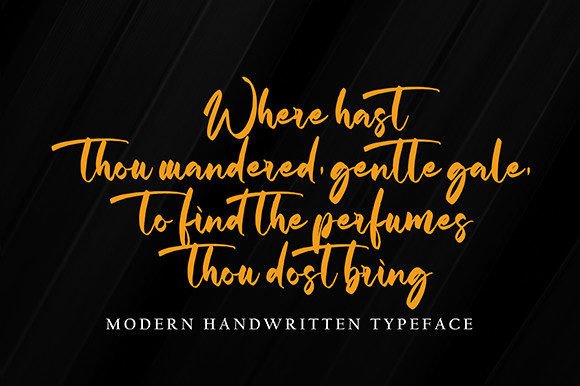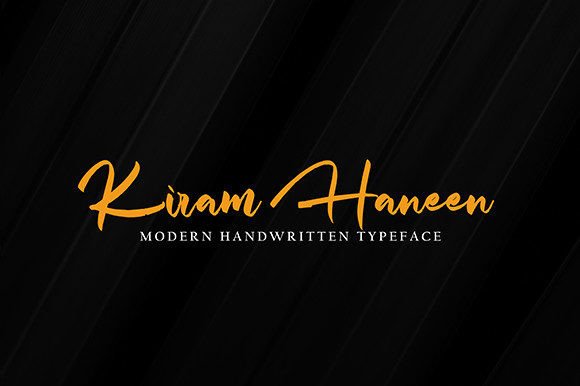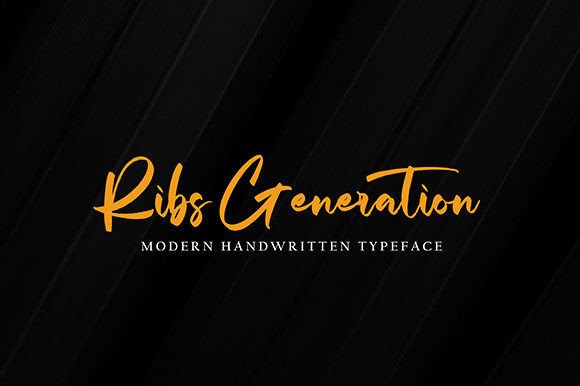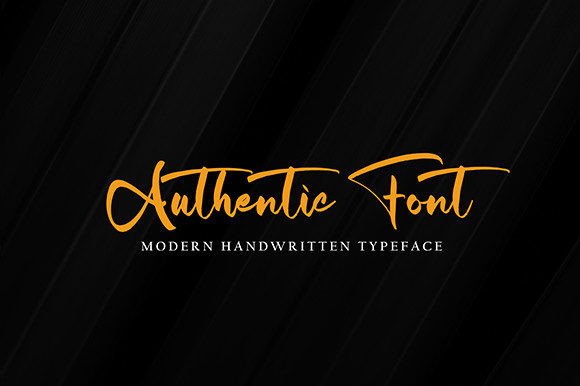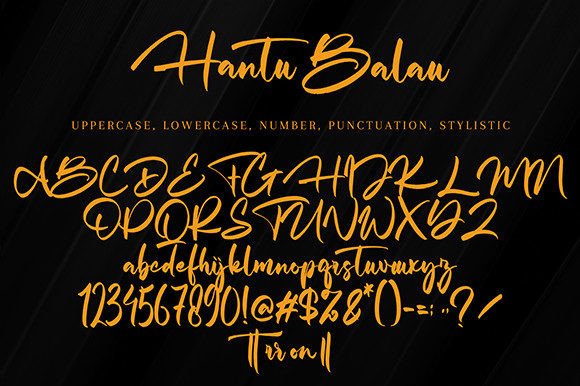
Hantu Balau Font: Elevate Your Creativity with Elegance
In the world of typography, a new font has emerged to capture the hearts of designers and crafters alike. Introducing Hantu Balau, a magical script font that combines elegance with a touch of whimsy. This versatile font is perfect for a wide range of creative projects, from Instagram posts to DIY calligraphy scripts. In this article, we’ll dive into the world of Hantu Balau and explore its features, benefits, and uses.
The Story Behind Hantu Balau
Hantu Balau is more than just a font – it’s a work of art. Carefully crafted with attention to detail, this script font exudes elegance and sophistication. The name “Hantu Balau” evokes a sense of mystery and enchantment, which is reflected in the font’s unique and captivating design.
Key Features of Hantu Balau
- Magical Script Font: Hantu Balau is a script font that adds a touch of magic to any creative project. Its flowing lines and curves create a sense of movement and fluidity.
- Elegant and Sophisticated: This font is perfect for projects that require a level of sophistication and elegance. Whether you’re designing a logo, creating a social media post, or crafting a DIY project, Hantu Balau will elevate your work.
- Versatile: Hantu Balau is a versatile font that can be used for a wide range of creative projects, from digital designs to handmade crafts.
- Easy to Read: Despite its elegant and cursive design, Hantu Balau is easy to read, making it perfect for body text and captions.
Uses for Hantu Balau
So, what can you do with Hantu Balau? The possibilities are endless! Here are a few ideas to get you started:
- Instagram Posts: Add a touch of elegance to your Instagram posts with Hantu Balau. Use it to create stunning captions, quotes, or stories.
- DIY Projects: Hantu Balau is perfect for DIY projects, such as handmade cards, invitations, or scrapbooking.
- Calligraphy Scripts: Use Hantu Balau as a calligraphy script for a unique and personalized touch.
- Logo Design: Create a stunning logo for your brand or business with Hantu Balau.
- Wedding Stationery: Add a touch of elegance to your wedding stationery, such as invitations, programs, or place cards.
Tips for Using Hantu Balau
To get the most out of Hantu Balau, here are a few tips to keep in mind:
- Experiment with Colors: Hantu Balau looks stunning in a variety of colors. Experiment with different hues and combinations to find the perfect look for your project.
- Play with Sizes: Don’t be afraid to experiment with different font sizes to create visual interest and hierarchy.
- Mix and Match: Combine Hantu Balau with other fonts to create a unique and eye-catching design.
- What is Hantu Balau?
- Hantu Balau is a magical script font carefully created with a touch of elegance.
- What can I use Hantu Balau for?
- Hantu Balau can be used for a wide range of creative projects, including Instagram posts, DIY projects, calligraphy scripts, logo design, and more.
- Is Hantu Balau easy to read?
- Yes, Hantu Balau is easy to read, making it perfect for body text and captions.